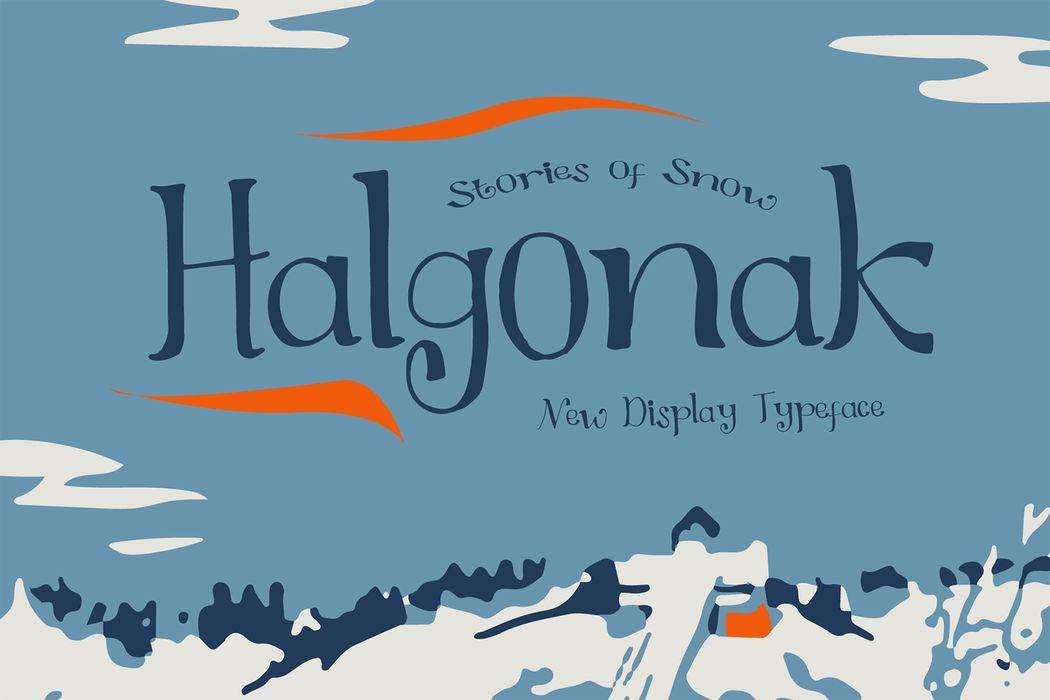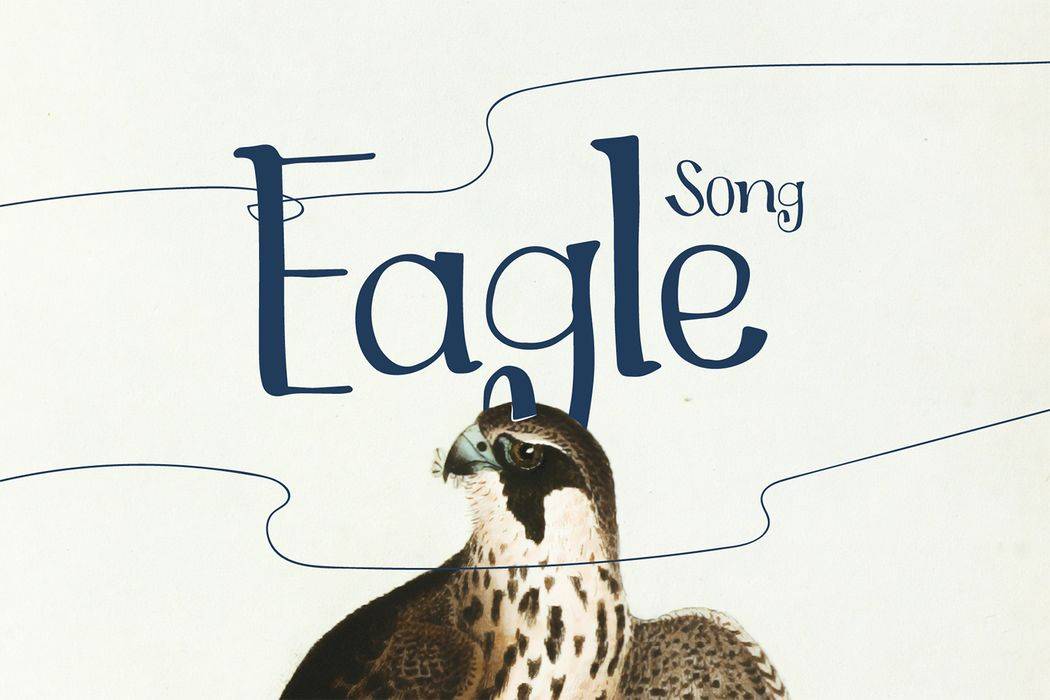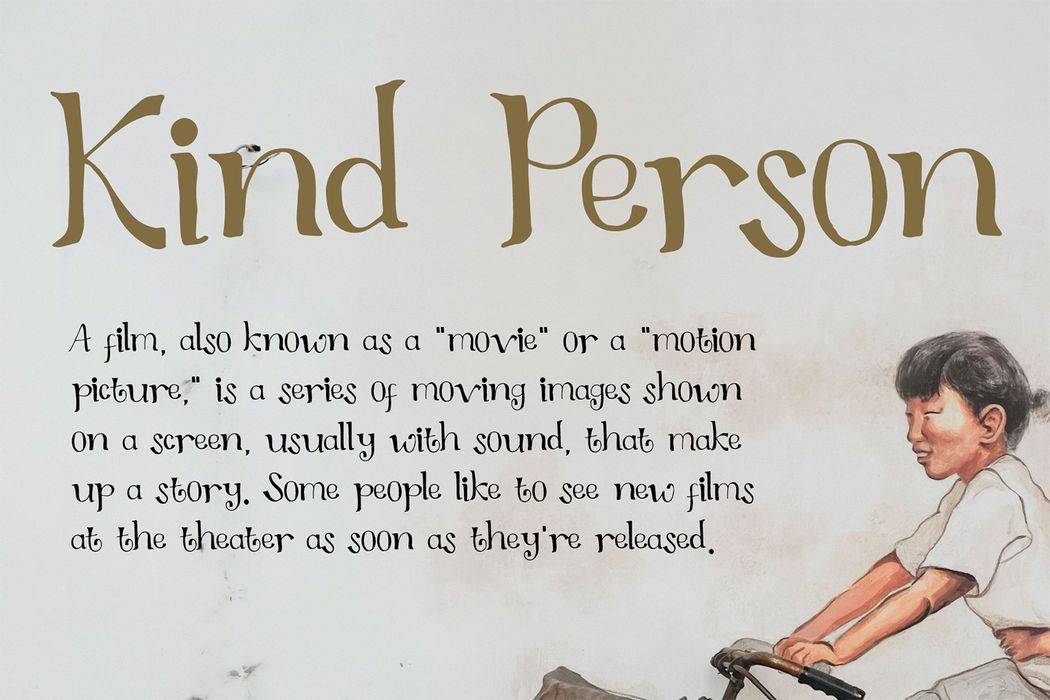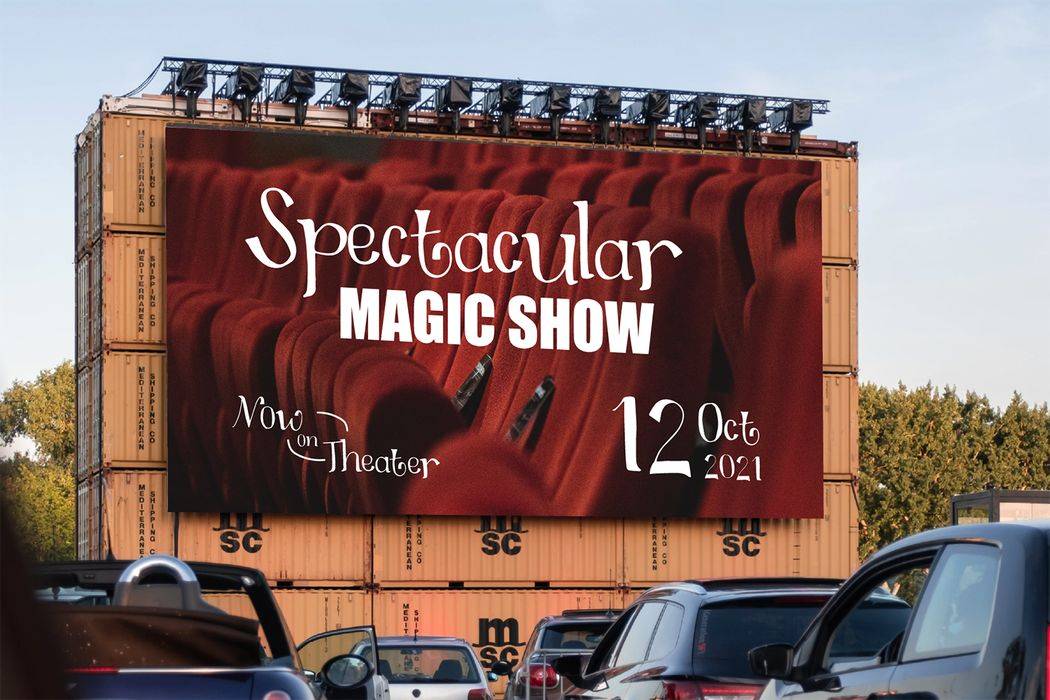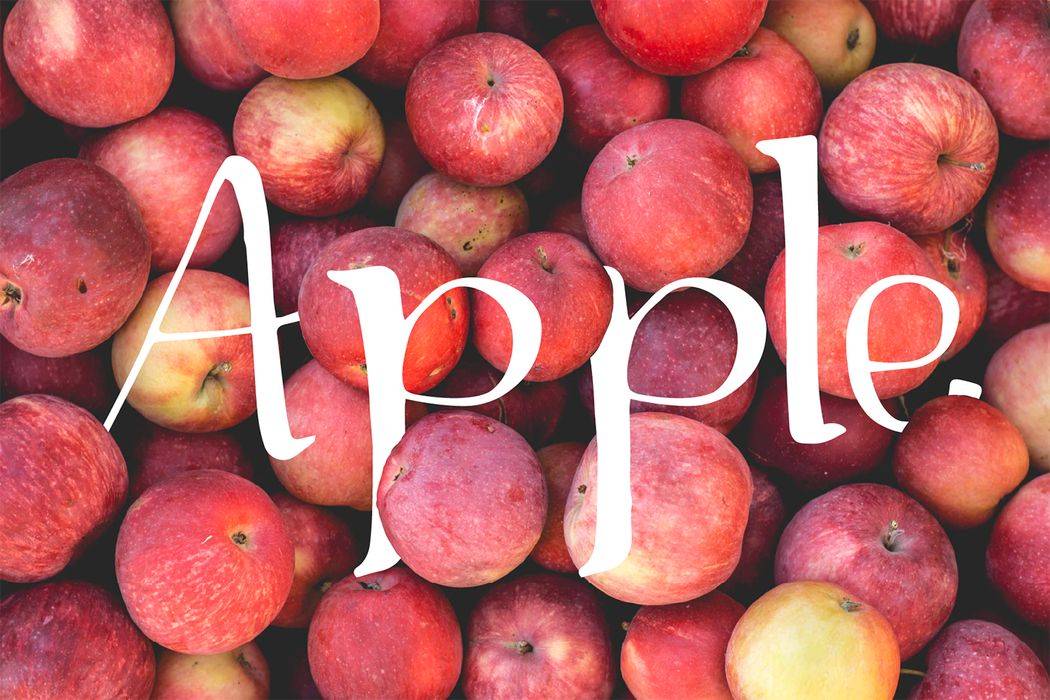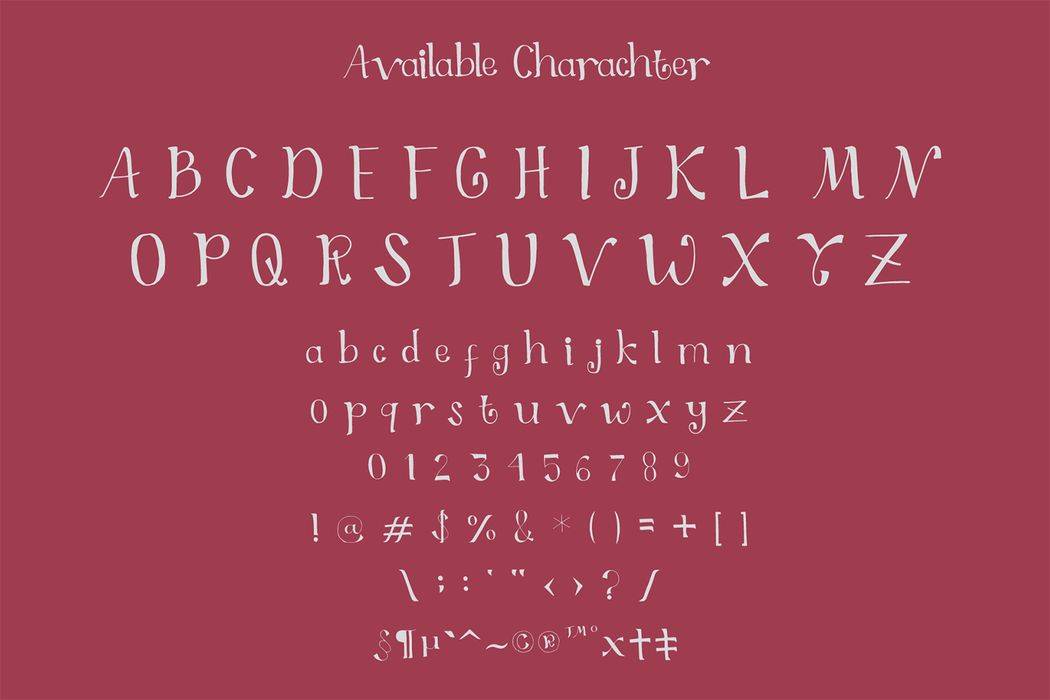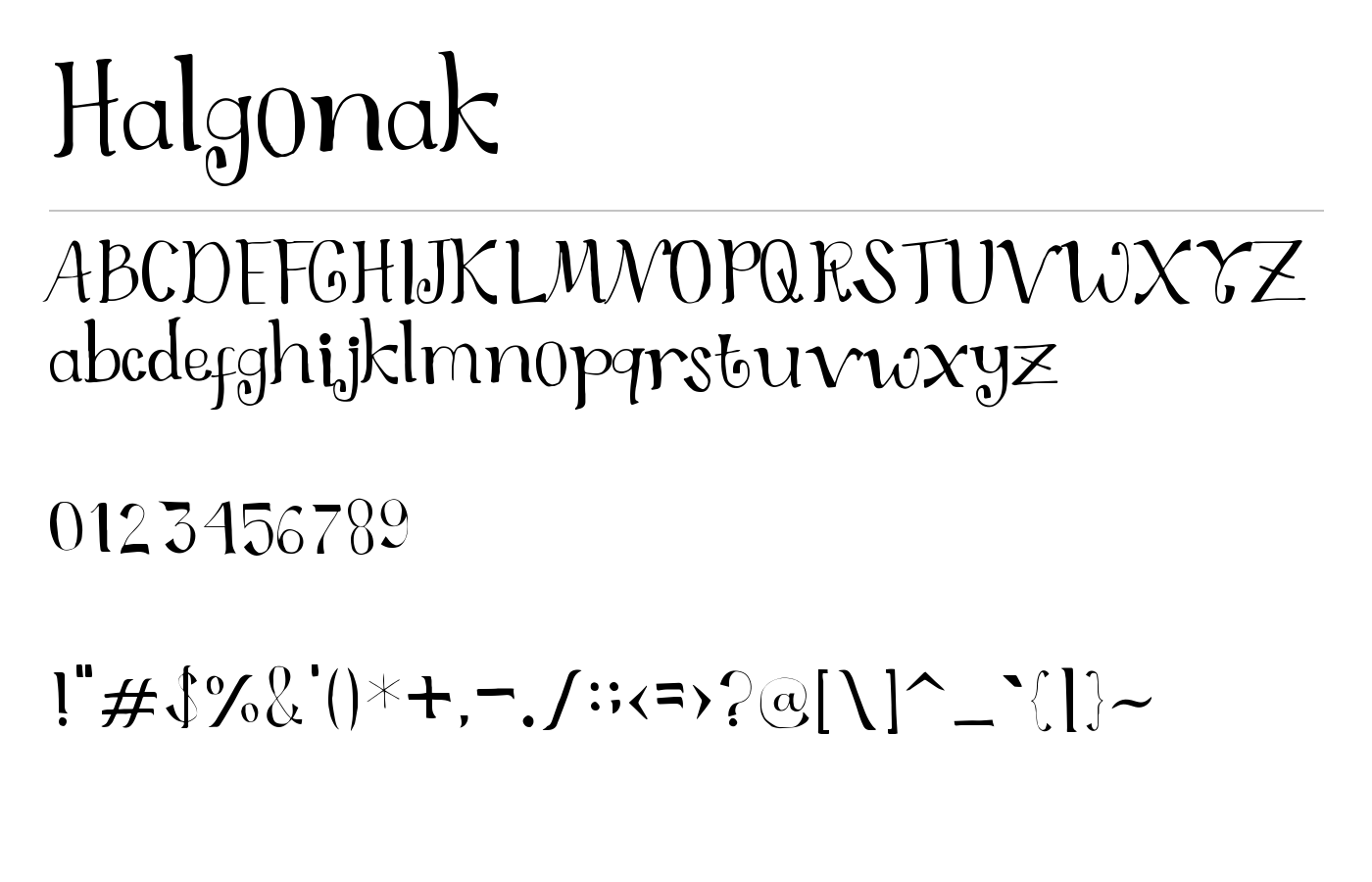
Halgonak is a whimsical serif font with a playful, hand-drawn quality, featuring irregular strokes and quirky letterforms that give it a unique, artistic charm. Its moderate contrast and tall x-height make it both readable and distinctive, ideal for creative branding, invitations, or editorial projects that seek a fun yet elegant touch. This font works well where personality and a handcrafted feel are desired, adding a lively and expressive character to headlines and decorative text.
Halgonak Font
About Halgonak Font